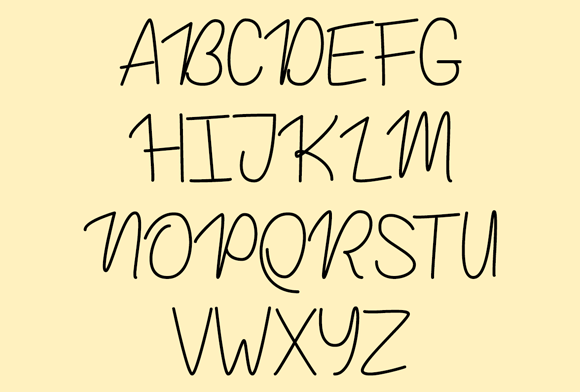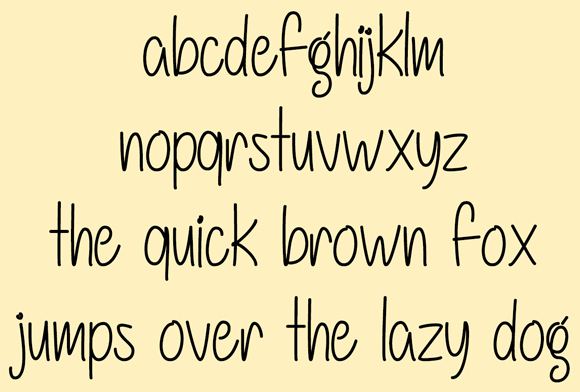
Introduction to Never Ever Font
Remember that moment when you were brainstorming ideas for your next creative project, and nothing seemed to spark inspiration? You rummaged through your design resources, hoping to stumble upon something that would bring your vision to life. And then, you found it – a font that spoke directly to your artistic soul. For many designers, that font is the Never Ever Font, a one-of-a-kind handwritten font that exudes charm and character.
What sets the Never Ever Font apart from other design resources is its high-quality, unique style that can elevate any project. Whether you’re working on a personal or professional project, this font is sure to bring a touch of personality to your designs. Plus, with its transparent background, you can easily integrate it into your favorite design tools.
Key Features of Never Ever Font
- High-quality design resource ideal for creative projects, including logos, branding, and graphics.
- Includes a range of glyphs and characters, including international characters and symbols.
- Unique, modern design that adds a touch of elegance and sophistication to any creative project.
Honest Review: Never Ever Font
As a designer, I’m always on the lookout for high-quality design resources that can elevate my creative projects. Recently, I had the chance to try out the Never Ever Font, and I’m excited to share my honest review.
Here’s what I like about the Never Ever Font:
- ✨ High-quality typography that looks amazing on both light and dark backgrounds.
- ⚠️ Limited font styles and weights, which might not be suitable for complex design projects.
- ⚠️ Some users may find the font a bit too playful or whimsical, depending on their design style.
Overall, I think the Never Ever Font is a great addition to any designer’s toolkit. While it may not be perfect, its high-quality typography and free download make it a valuable resource for creative projects. I’d definitely recommend it to designers looking for a fun and unique font to spice up their designs.
Tips for Getting the Most Out of Never Ever Font
The Never Ever Font is perfect for creative projects, including social media graphics, posters, presentations, logos, business cards, brochures, reports, resumes, and newsletters. Its high-quality design and transparent background make it a valuable resource for designers and non-designers alike.